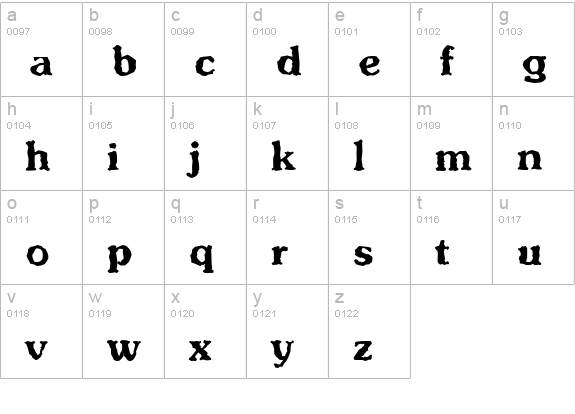
SunsetRandom-Bold Font Details
SunsetRandom-Bold is a strong, high-contrast variant in the SunsetRandom typeface family \xE2\x80\x94 well suited to headlines, attention-grabbing titles, and strong calls-to-action.
SunsetRandom-Bold font is a bold and striking typeface that exudes a sense of modernity and sophistication. With its unique design and elegant curves, this font is perfect for adding a touch of style to any project. Whether you're designing a logo, creating a poster, or working on a website, SunsetRandom-Bold will make your text stand out. And the best part? It's completely free! You can download SunsetRandom-Bold font for free at FontsMarket.com. Don't miss out on this opportunity to enhance your designs with this beautiful and versatile font.